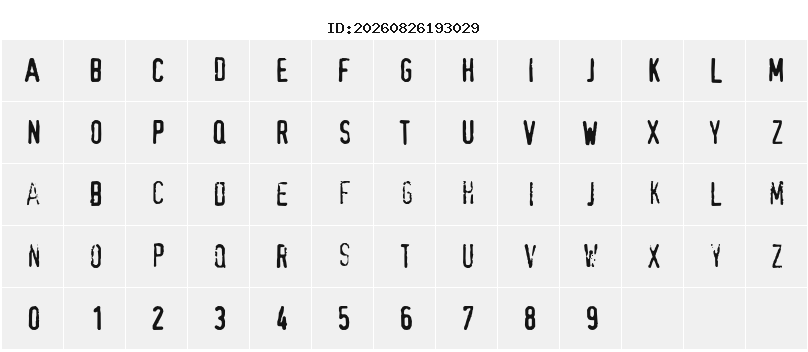
• Font Name: XBAND Rough
• Full Font Name: XBAND Rough
About XBAND Rough.ttf
XBAND Rough.ttf is a modern, elegant sans-serif font designed for ultimate readability and visual harmony. Perfect for branding, headlines, web design, and print materials.